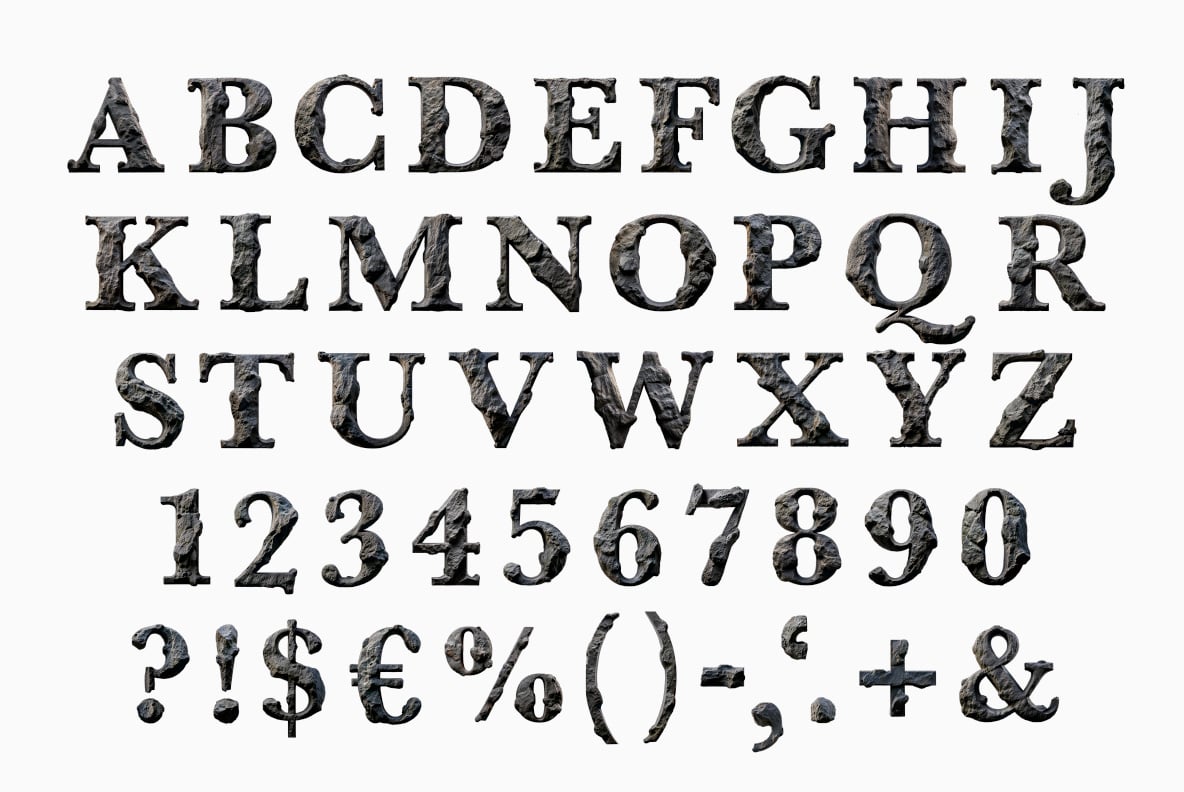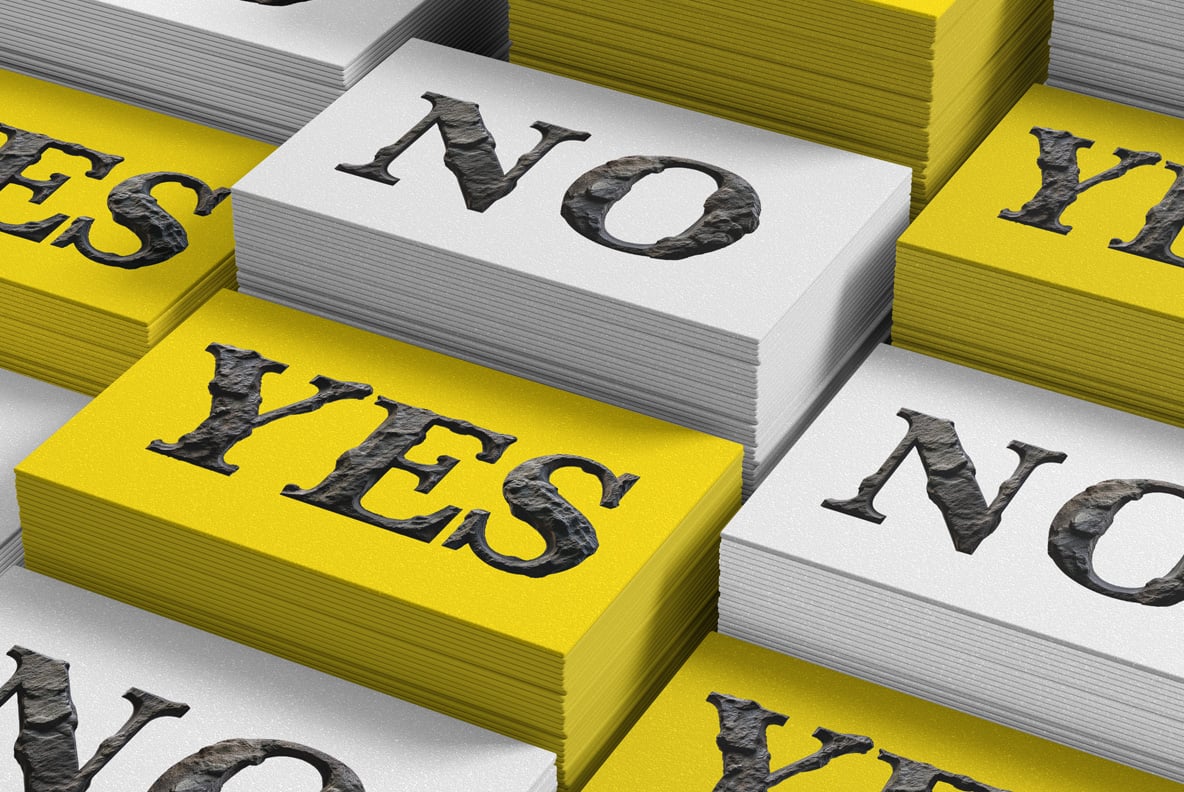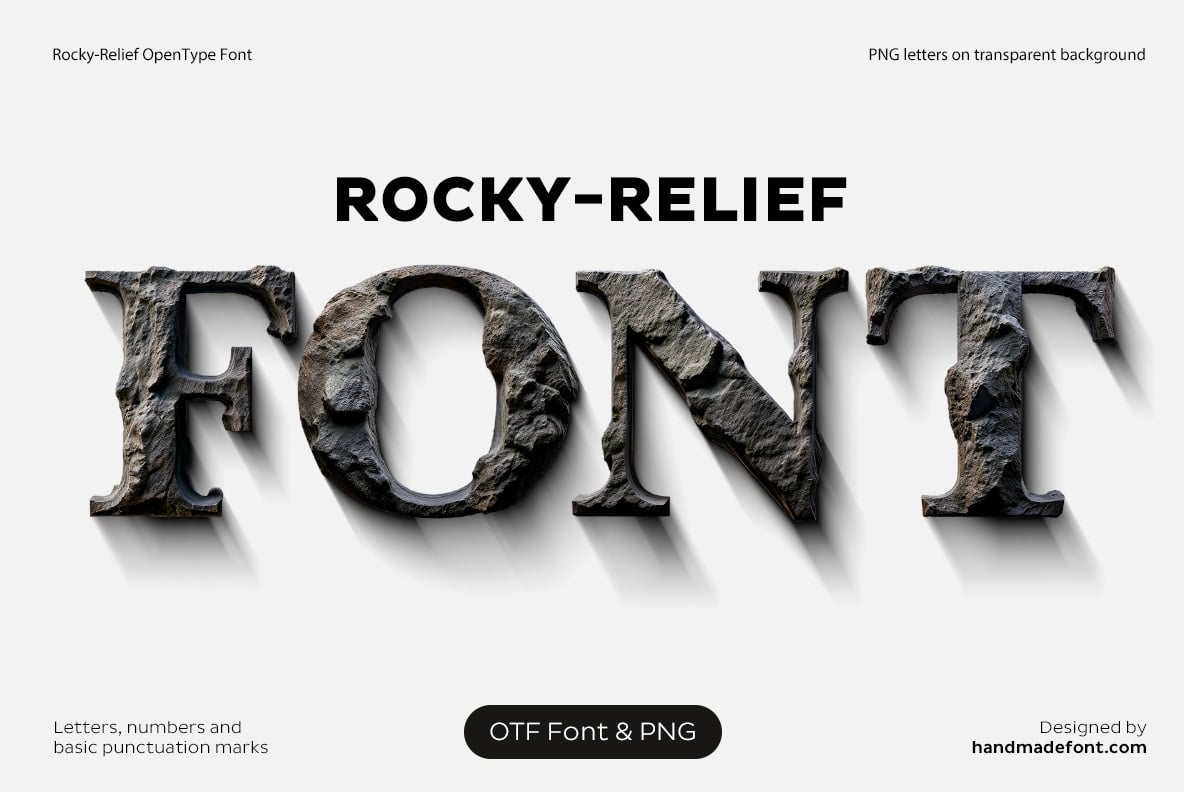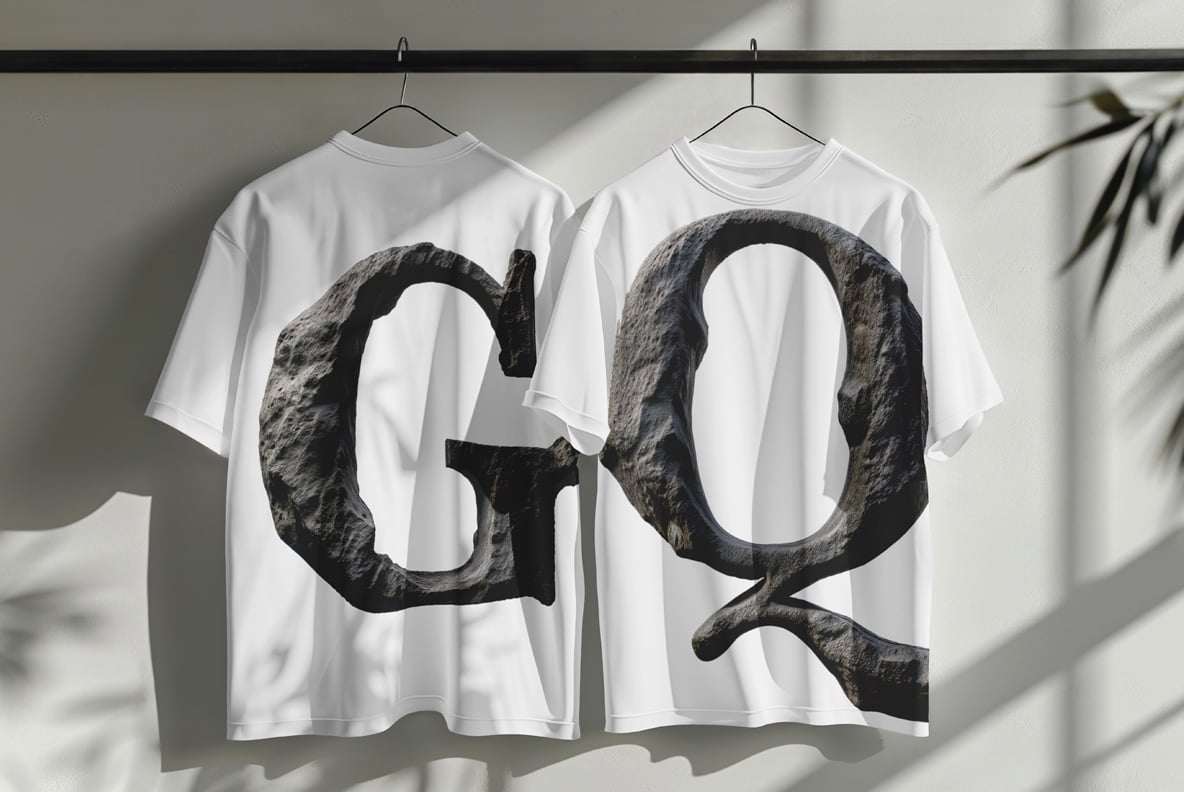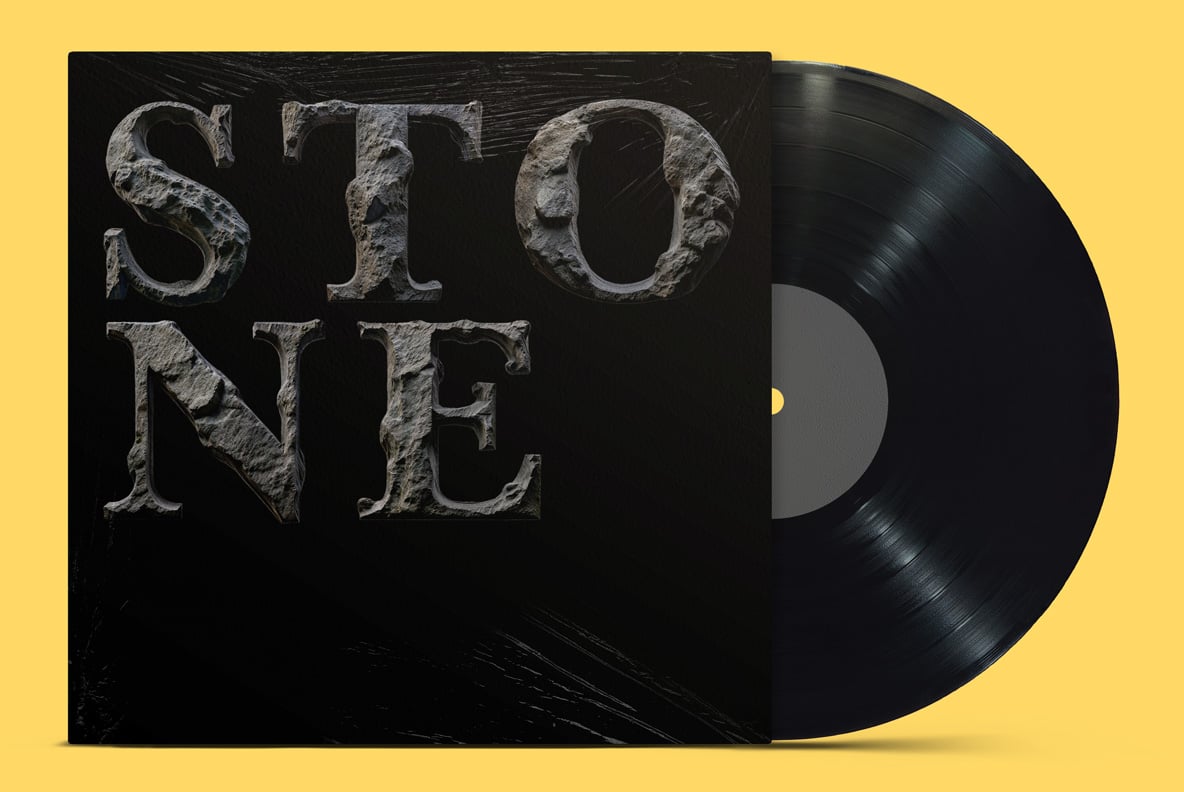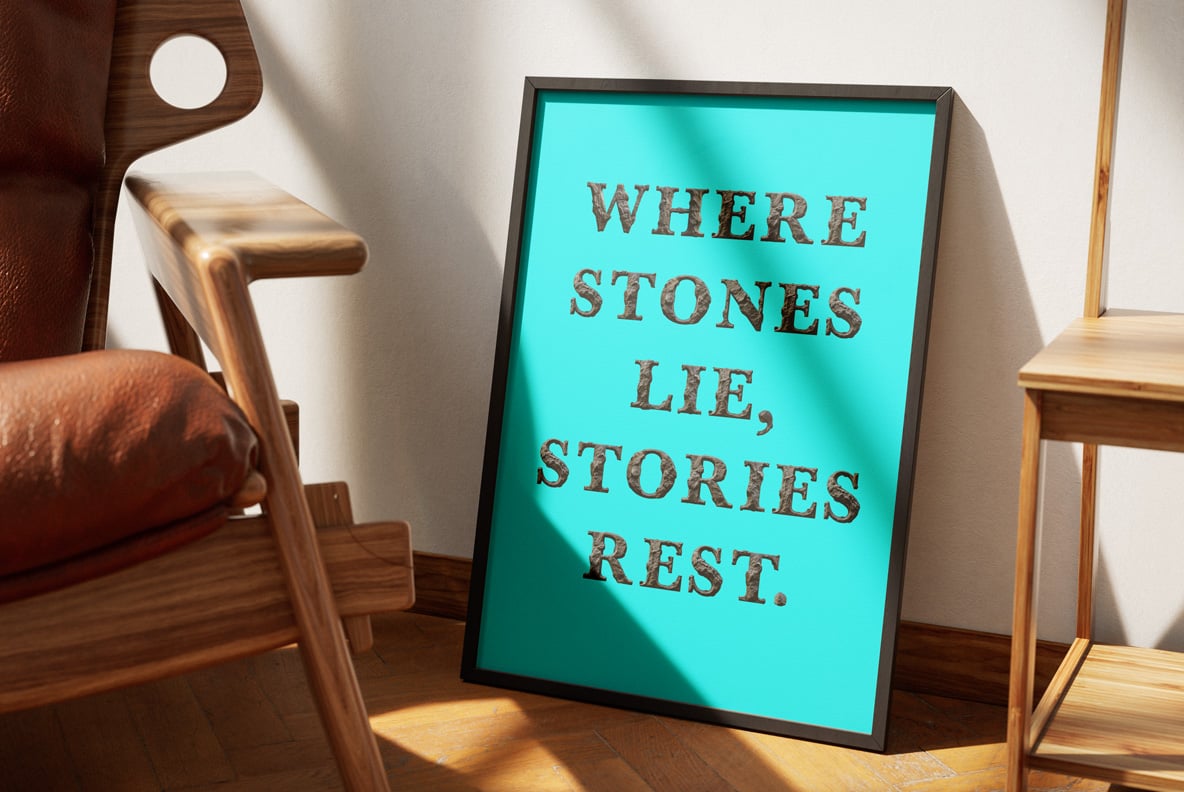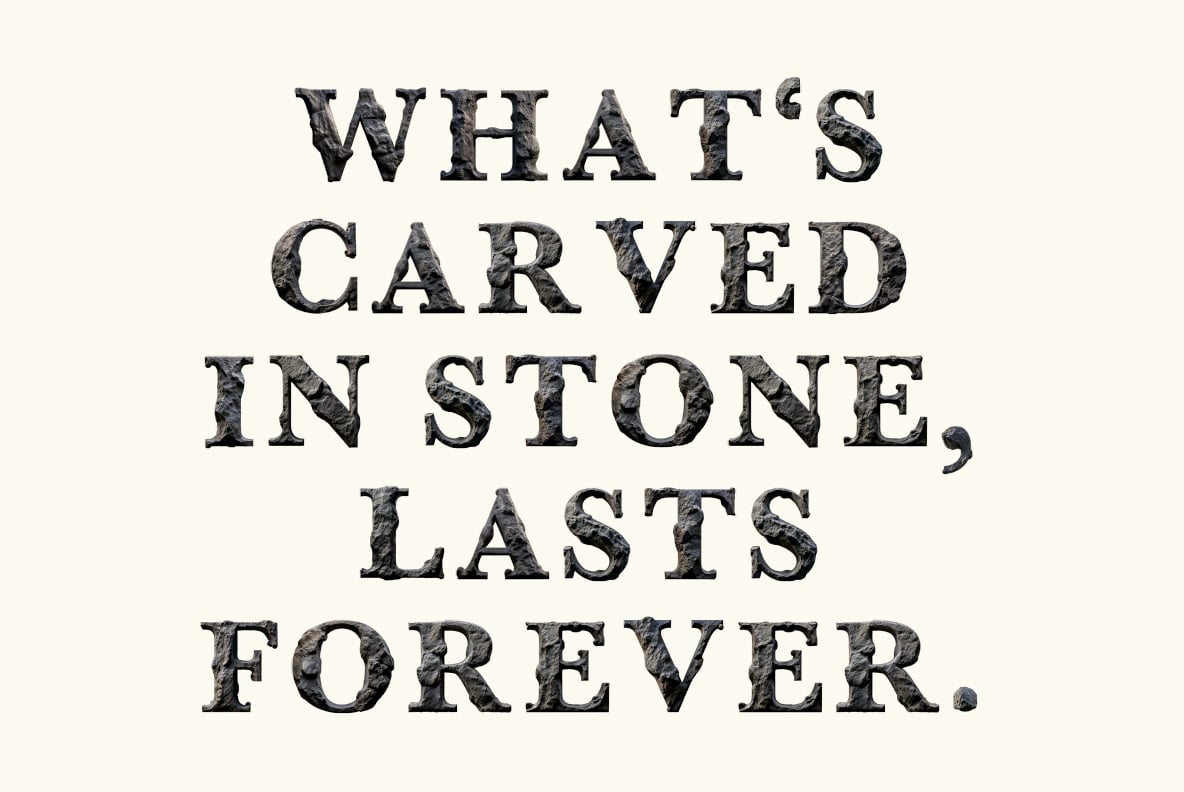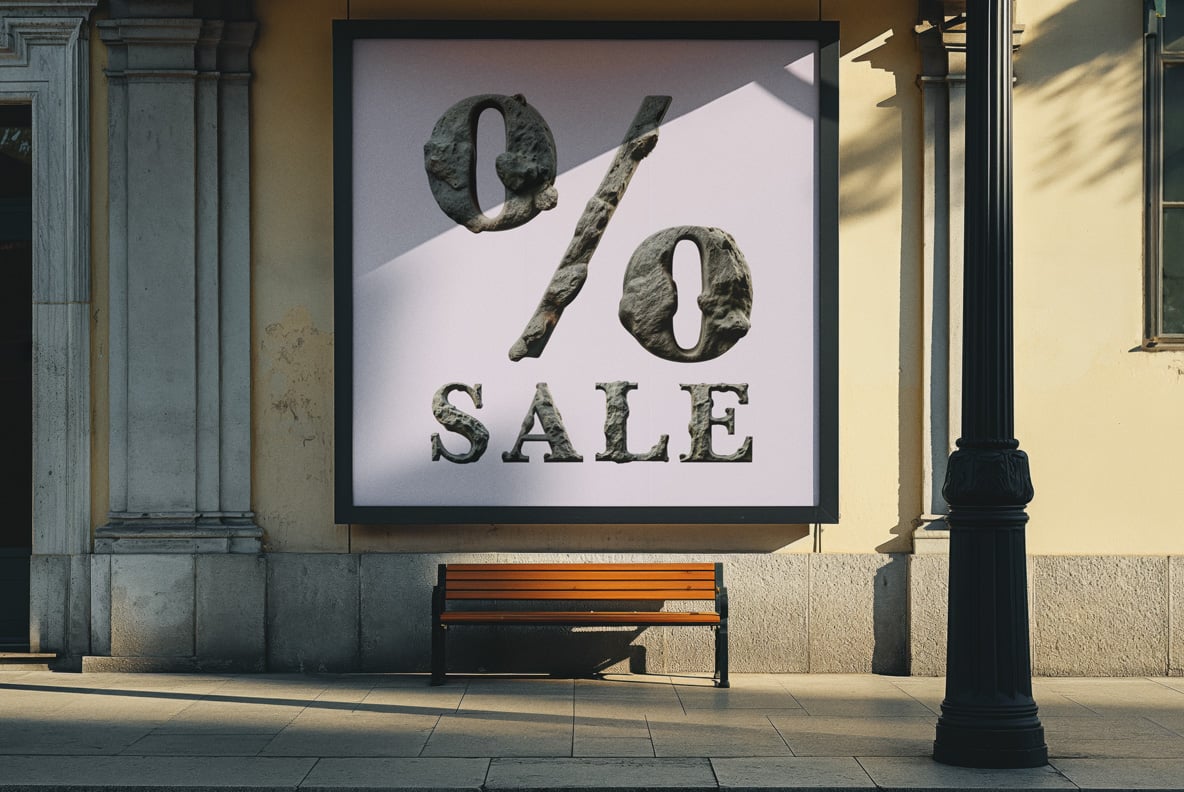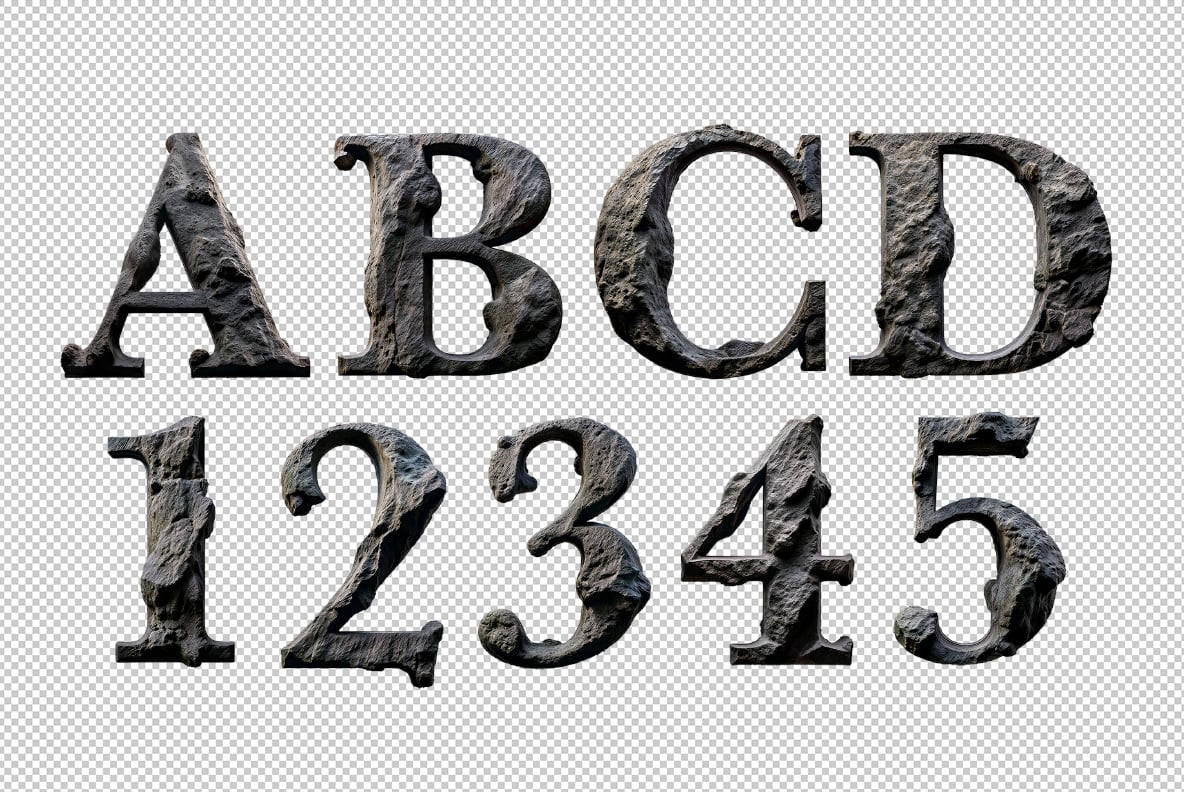
Rocky Relief Font
Rock the rugged look with Rocky Relief Font, a stone-inspired masterpiece that brings the essence of weathered rock to your designs. Each letter in this stone alphabet is carved with chiseled precision, boasting an organic texture reminiscent of natural rocky formations. The rough, uneven surface, filled with bumps, ridges, and crevices, captures the essence of rugged stone typography. Its dark, grayish tone adds depth and solidity, while subtle highlights emphasize the textured, weathered feel. Perfect for stone lettering projects, this font evokes the raw beauty of nature, as if sculpted by time itself. With a bold and earthy charm, Rocky Relief Font stands strong as a testament to the timeless allure of carved and rugged typography.